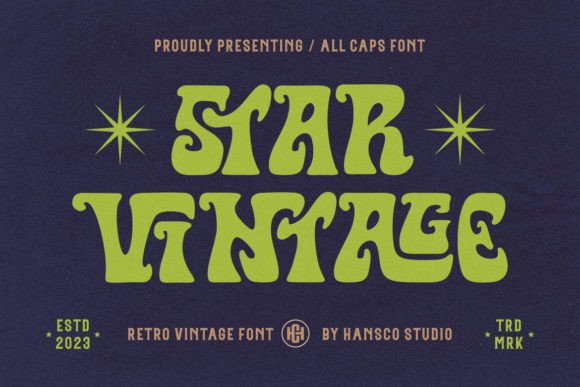
Introducing the Star Vintage Font, the perfect choice for those seeking a touch of nostalgia in their designs. This retro serif display font, created by HansCo, is sure to captivate and inspire. With its slightly bold appearance and ligature characters, Star Vintage adds a unique and authentic vintage feel to any project.
Imagine the possibilities with this font. Picture your logo, stickers, or packaging design adorned with the charm and character of Star Vintage. Let it breathe life into your headlines and give your brand identity a distinctive edge. Stand out from the crowd and make a statement with this font that is tailor-made for the t-shirt and apparel industry.
But it doesn't stop there. Star Vintage is versatile and can elevate any creative design project. Whether it's posters, magazines, books, YouTube thumbnails, Instagram posts, or even websites, this font is ready to take your ideas to the next level. Its timeless appeal will leave a lasting impression on your audience.
What sets Star Vintage apart is its attention to detail and masterful design. Each character is carefully crafted to evoke a sense of nostalgia and evoke emotions. The ligature characters add a touch of elegance and sophistication, making this font truly one of a kind.
But don't just take our word for it. Experience the magic of Star Vintage for yourself. Feel the rush of creativity as you explore its endless possibilities. Let it transport you to a bygone era and evoke emotions that only a vintage font can. Step into the world of Star Vintage and let your imagination run wild.
In conclusion, Star Vintage is not just a font. It's a journey back in time, a glimpse into the past, and a gateway to endless creativity. It's the missing piece that will transform your designs from ordinary to extraordinary. So why wait? Download Star Vintage today and let the magic begin.